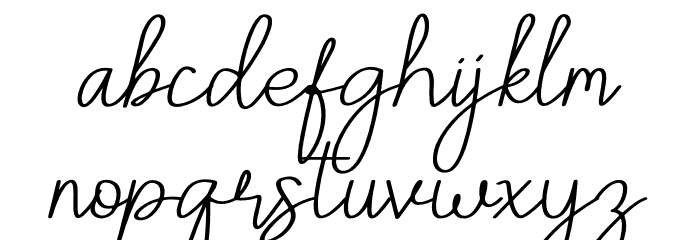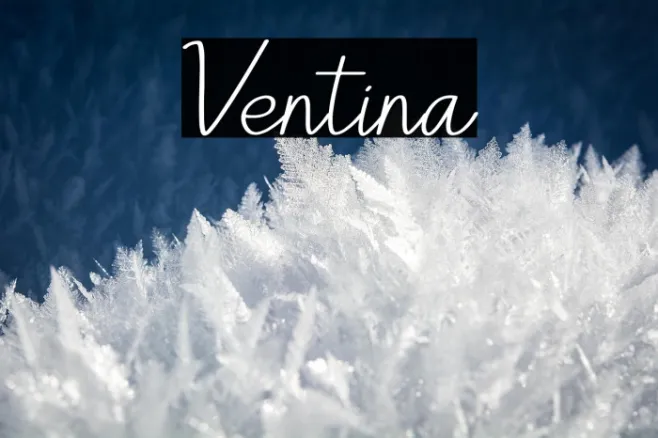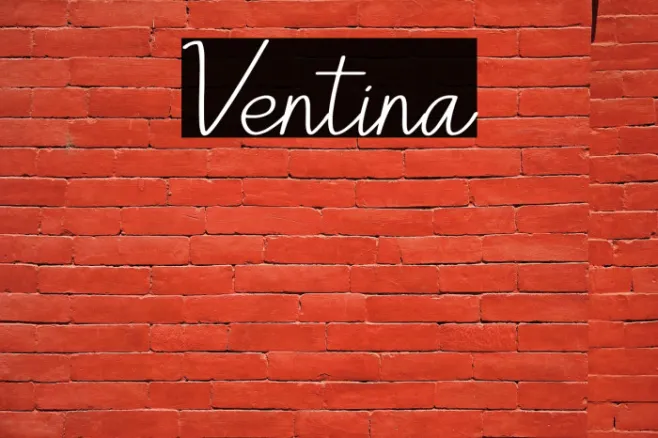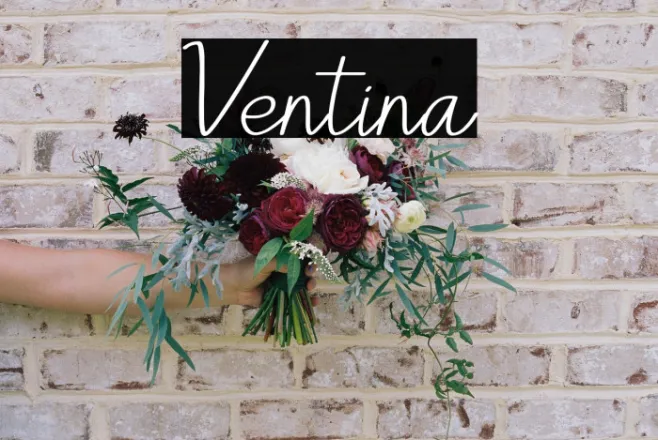
Ventina Font
This font features a stylish and elegant script design, with a handwritten feel that exudes sophistication and charm. The uppercase letters are tall and slender, with a slight slant that adds a dynamic flow to the text. The lowercase letters are more fluid, with graceful loops and curves that enhance the script's natural look. The numerals are bold and clear, providing excellent readability. Special characters are thoughtfully designed to match the overall aesthetic, making this font versatile for various creative projects. Its unique style is perfect for adding a personal touch to any design.
A stylish and elegant script font with a handwritten feel.
- Proposed Projects: Ideal for wedding invitations, greeting cards, branding, and logo design.
- Overall Style: Elegant and sophisticated
- Use Case: Logos, Invitations, Decorative text